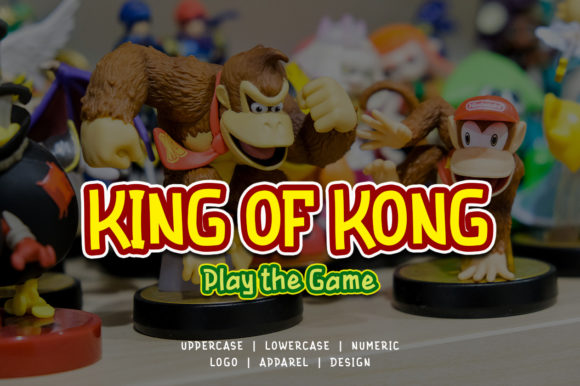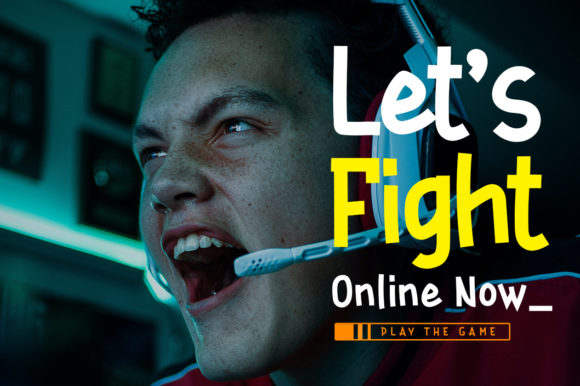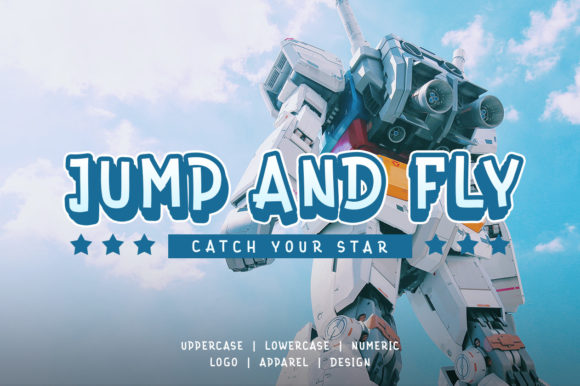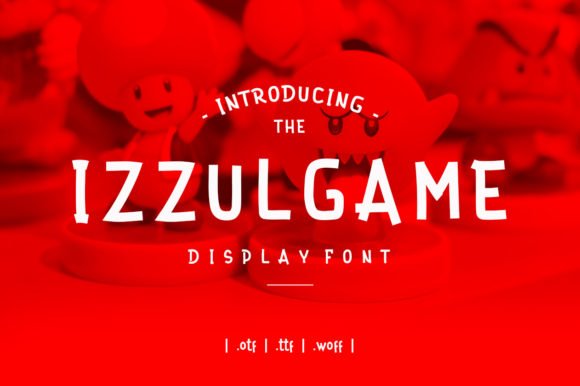
Introduction to Izzul Game Font
Izzul Game is a unique and interesting display font.
It is ideal for games, logos, headlines, covers and so much more .
Key Features of Izzul Game Font
Why Choose Izzul Game Font?
Izzul Game Font offers exceptional quality and versatility, making it a valuable addition to your design toolkit. Whether you’re creating for personal projects or commercial use, Izzul Game Font delivers professional results.